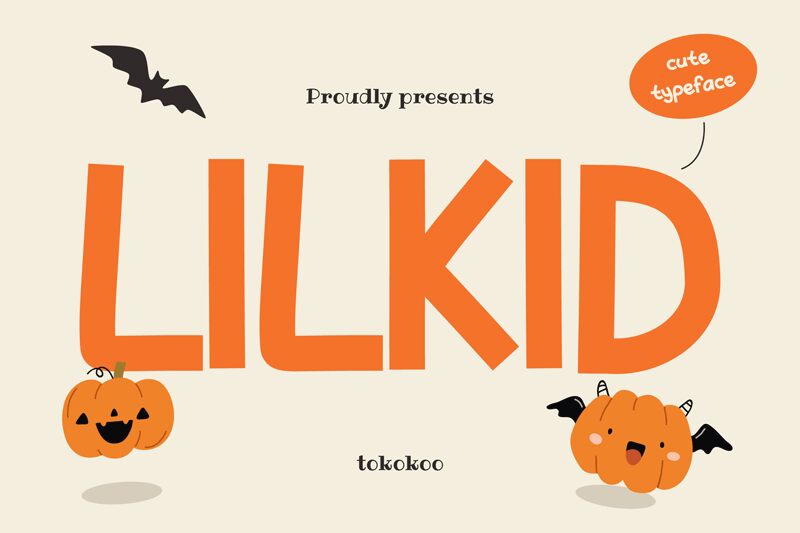
Lilkid font family is a humorous and playful cartoon font that comes rounded and friendly. The Lilkid Free font was designed by Tokokoo Studio who style this writing style with the mention of kids. Little children are usually depicted with innocent, charming, fun, and lovely aesthetics and these are the values that this font is inspired from.
Advertise toys, games, children’s events, and school activities with this informal character set. Use it for titles, headings, or main text on different events’ branding projects. Apply it to posters, flyers, banners, book covers, etc.